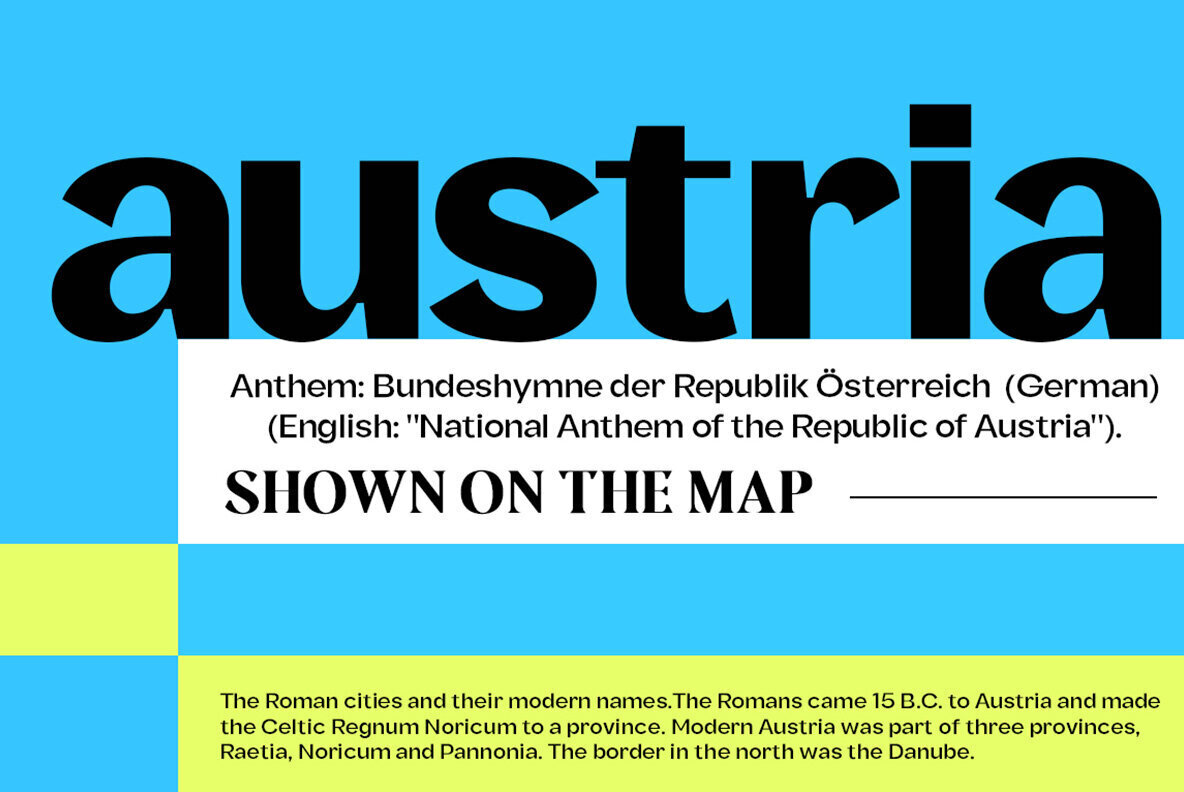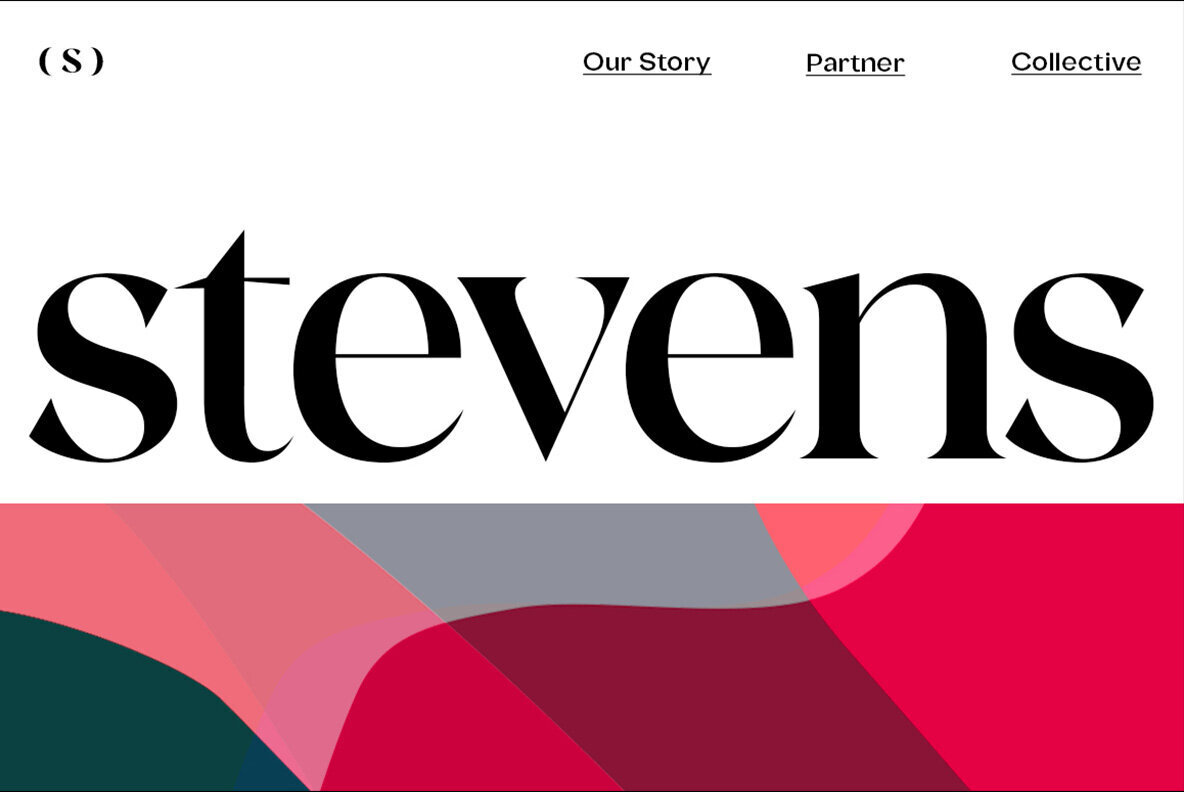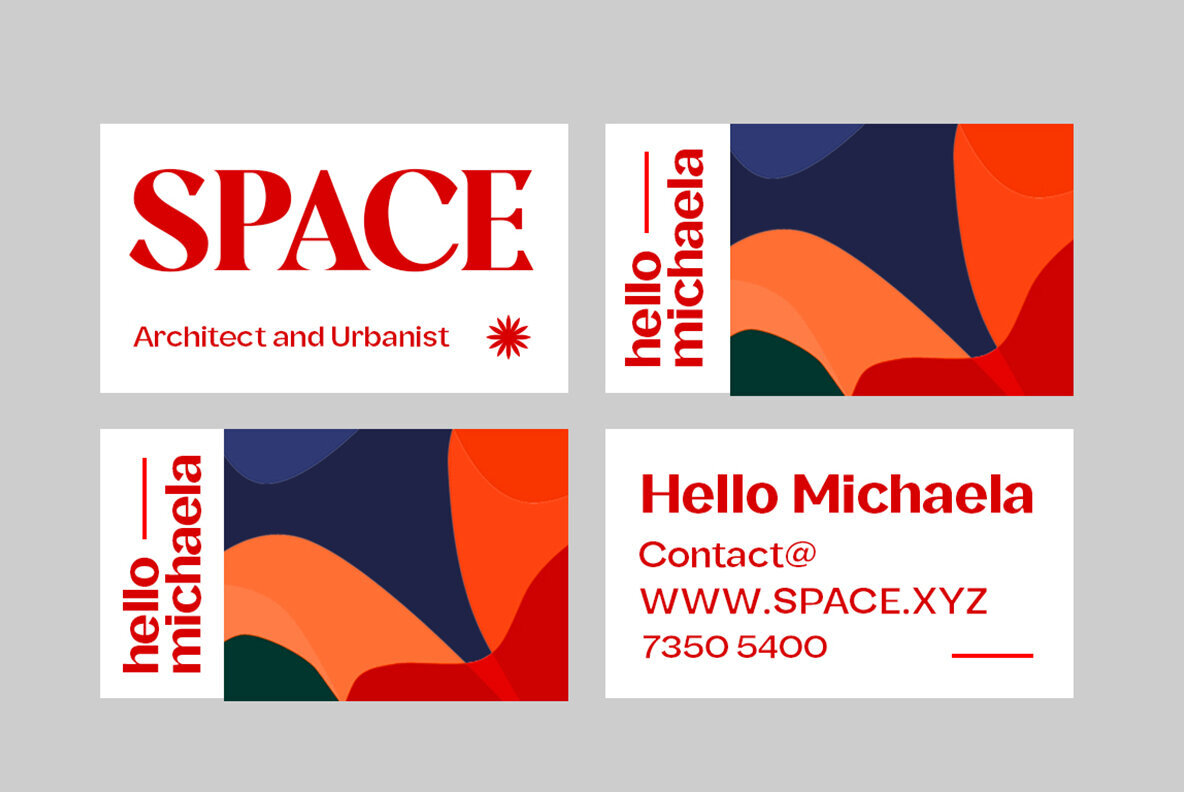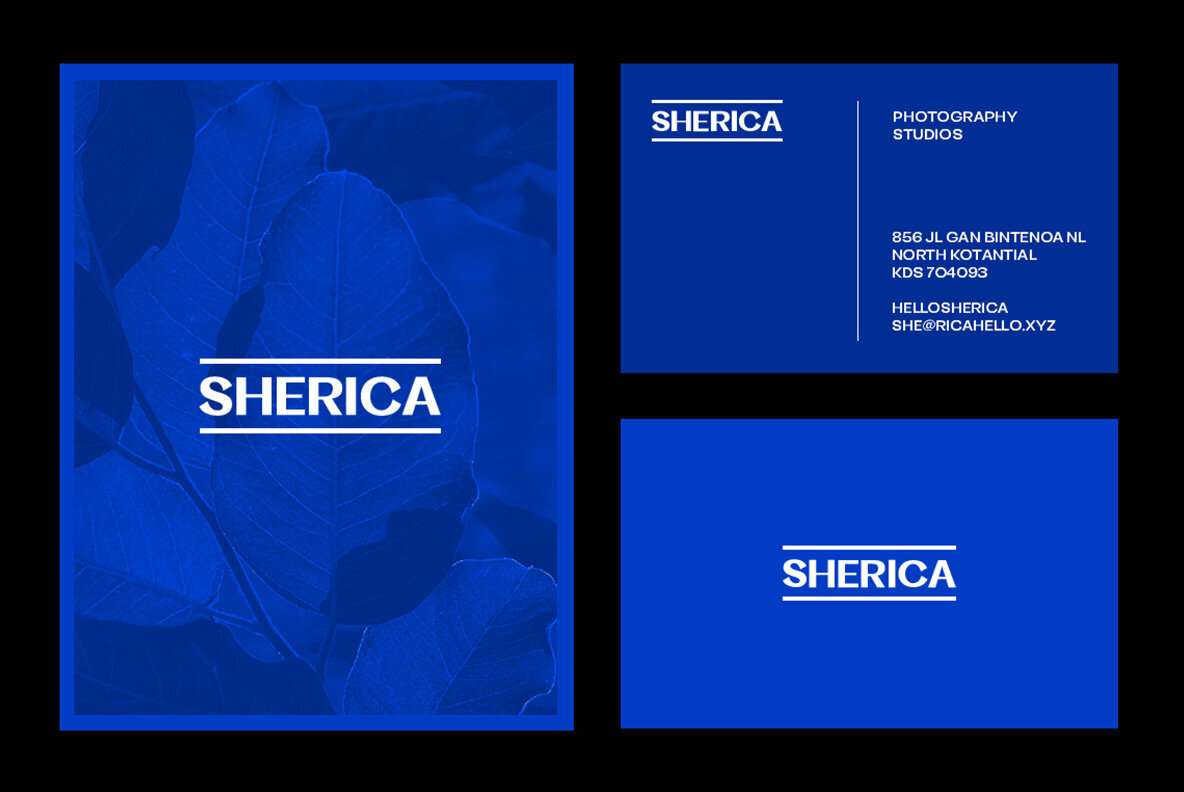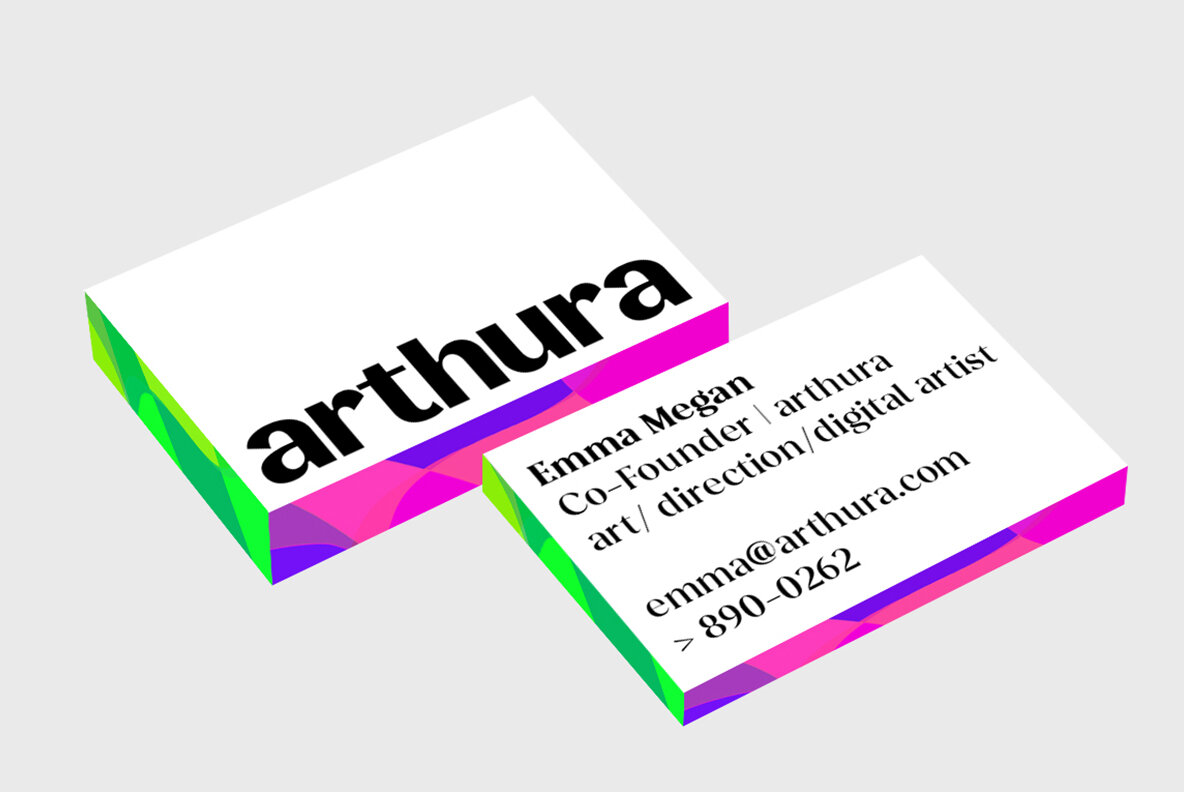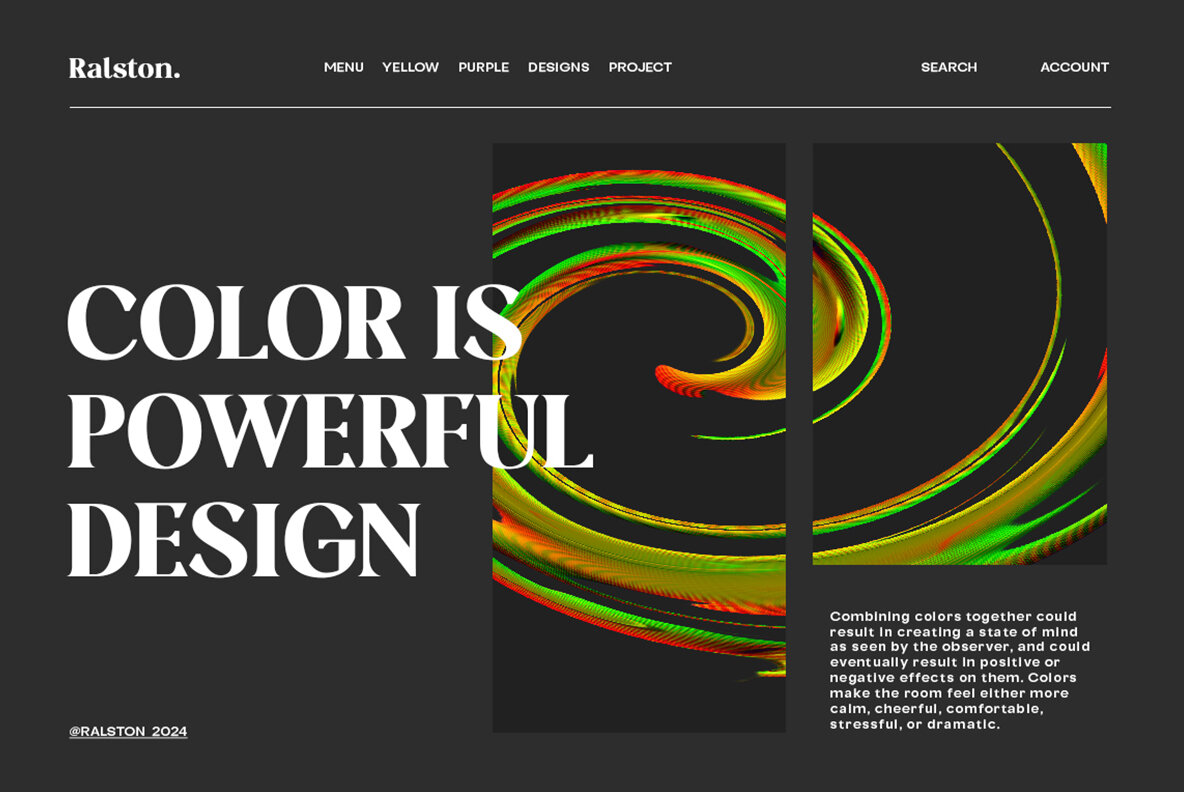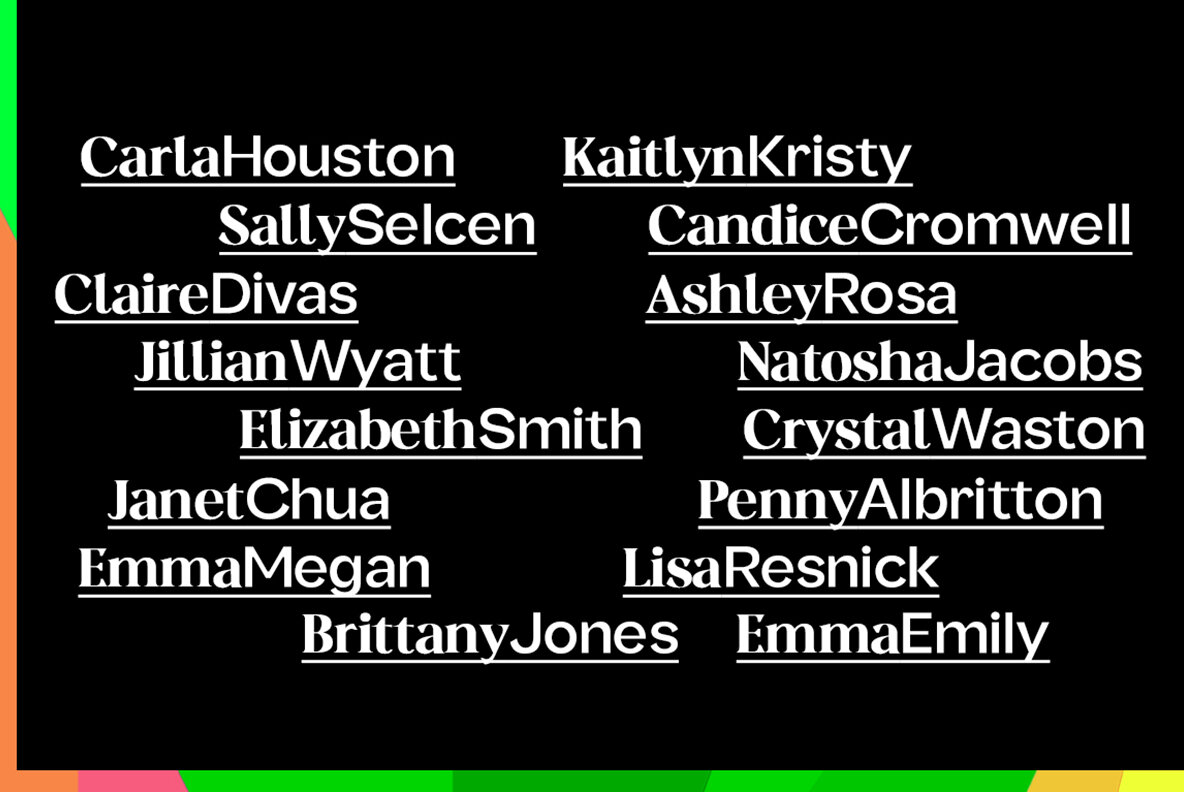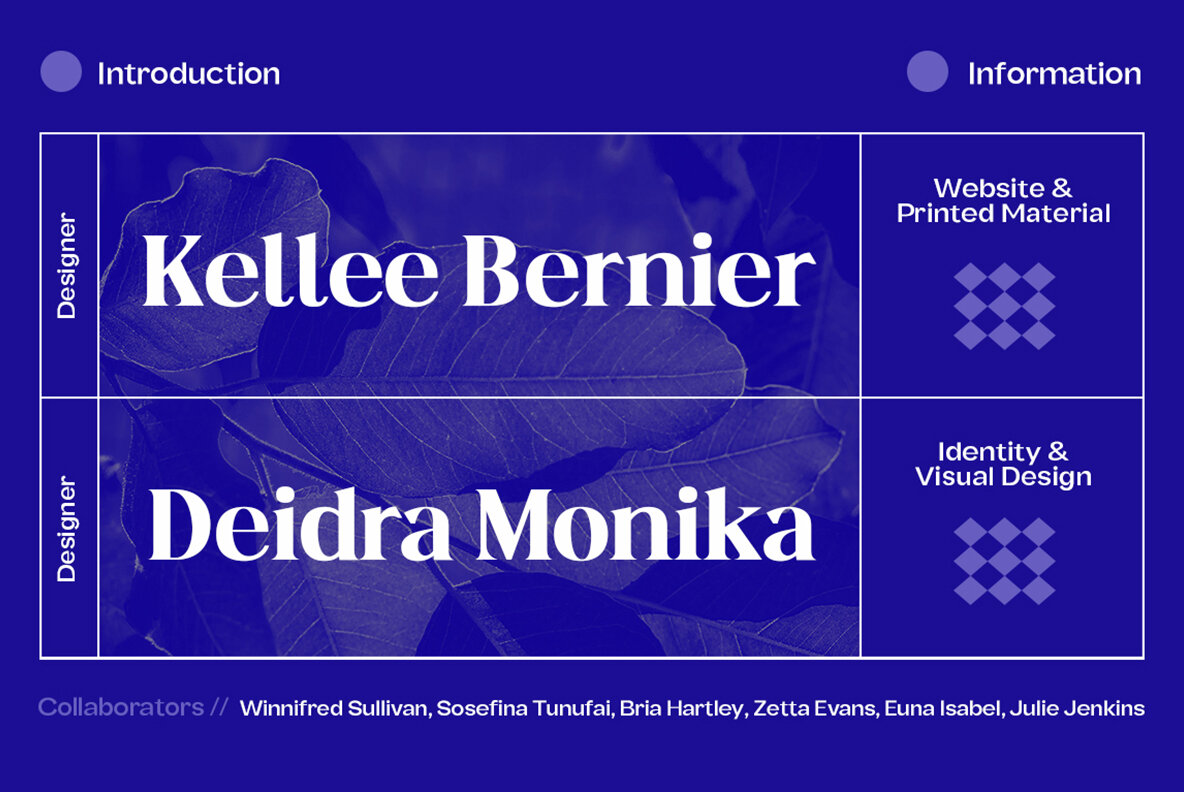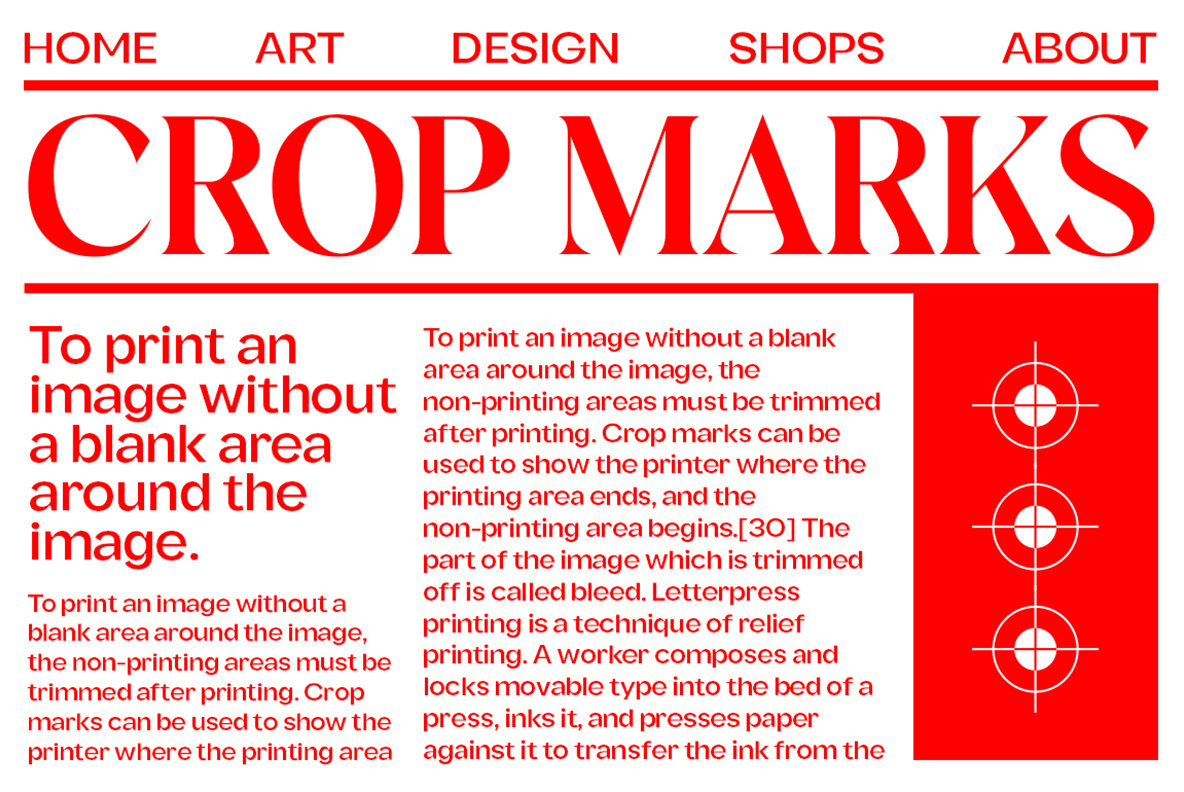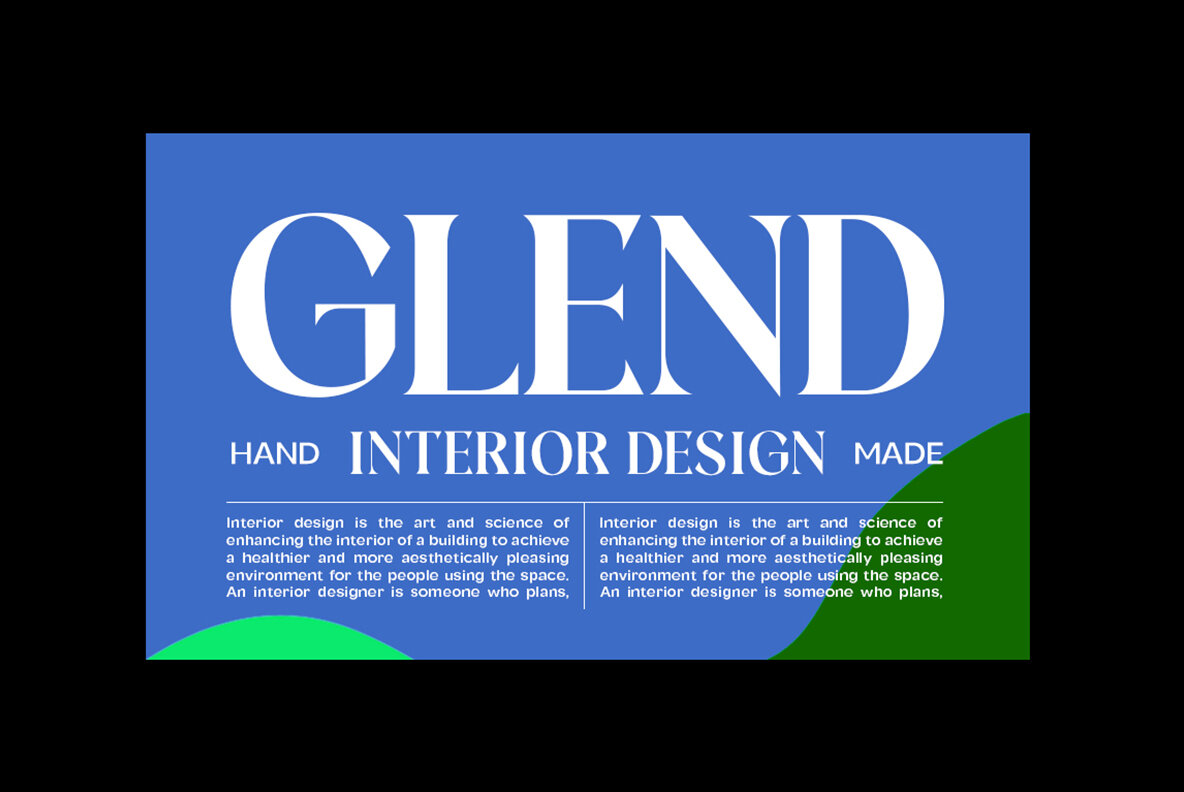
Fregan Font
Fregan Sans
Fregan Sans Bold
Fregan Serif Bold
Fregan Serif
The combination of geometric shapes and organic curvy details make this typeface quite unique. It's perfect for your elegant branding needs, or if you want to create an awesome magazine design!